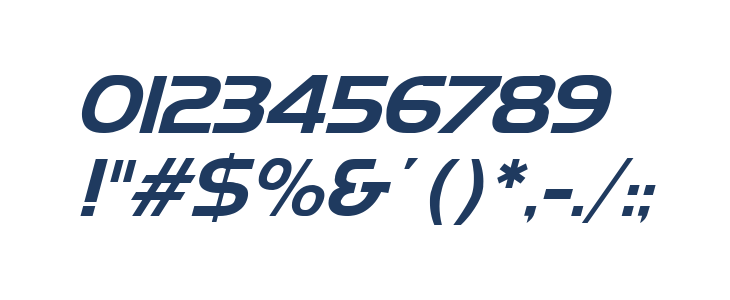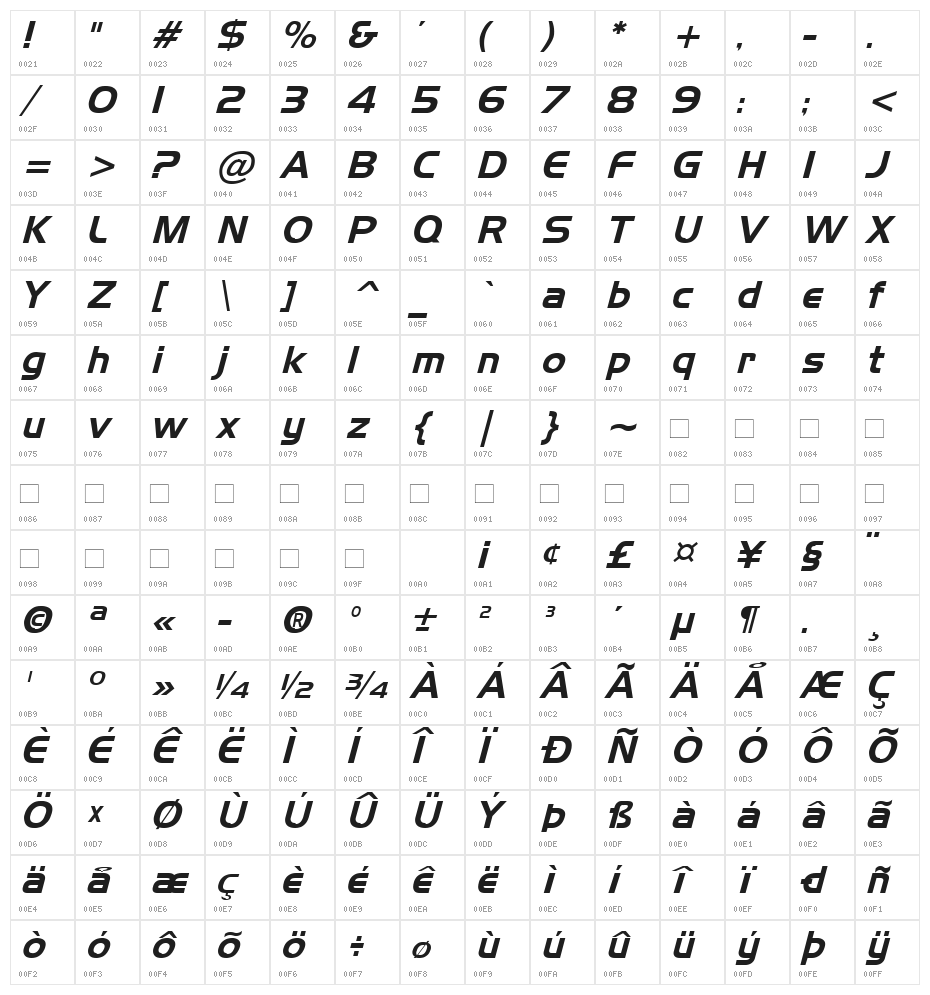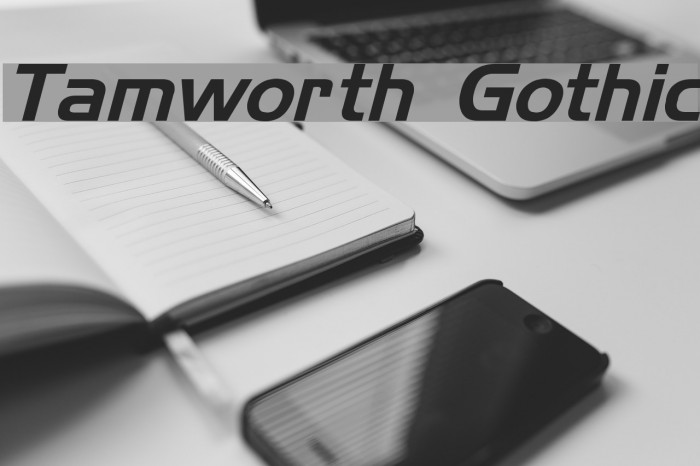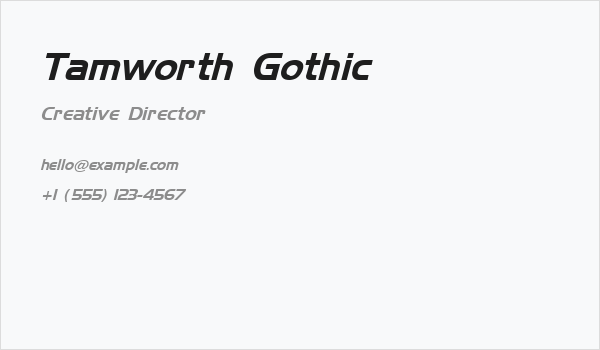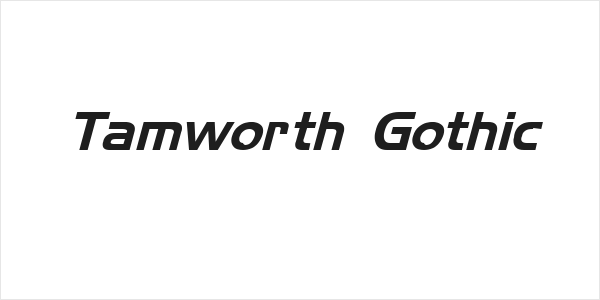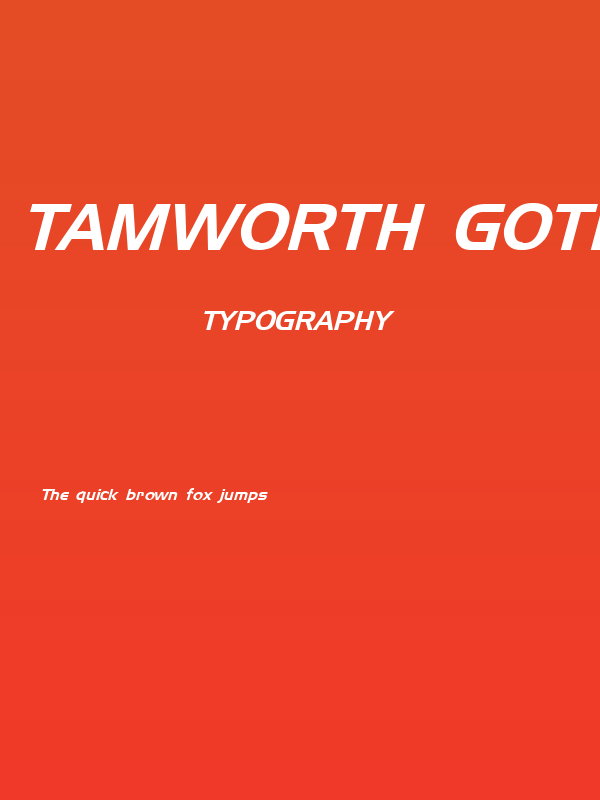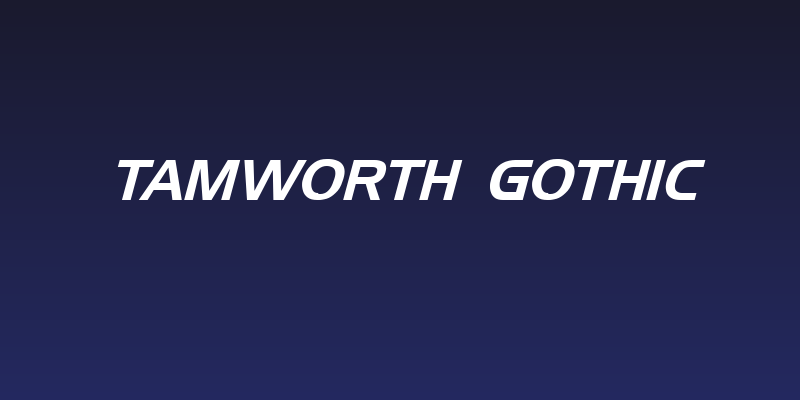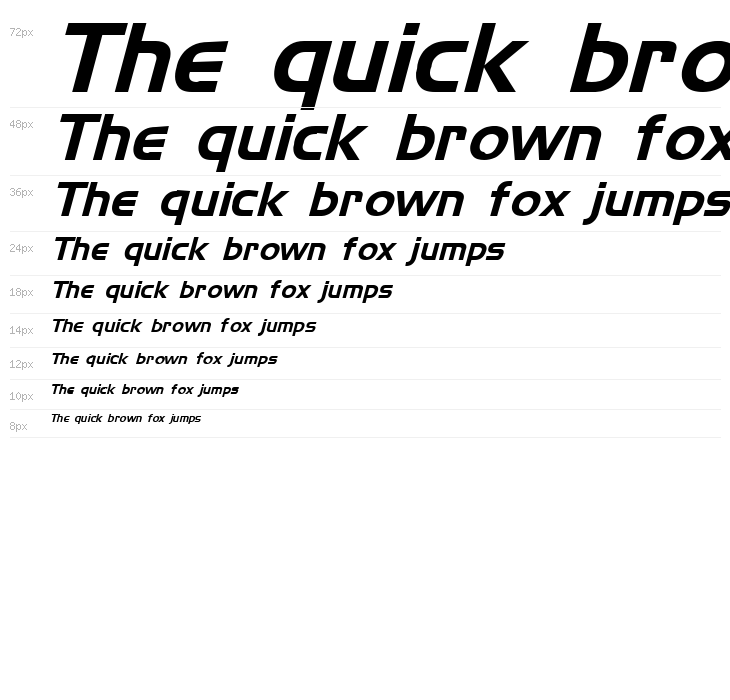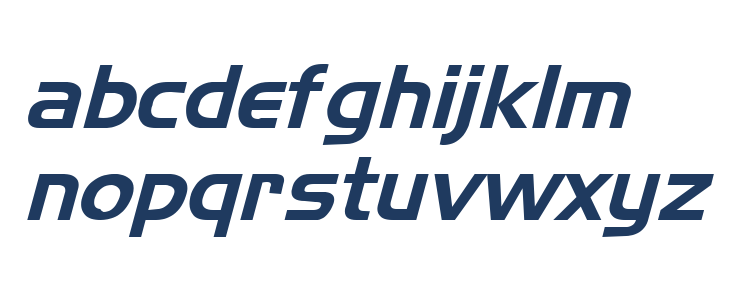
Tamworth Gothic Font
Tamworth Gothic Description
This font features a sleek and modern design with a distinct slant, giving it a dynamic and forward-moving appearance. The characters are bold and slightly condensed, with a consistent stroke width that maintains a clean and uniform look. The uppercase letters are tall and commanding, while the lowercase letters maintain a harmonious balance with their slightly rounded forms. The numerals are clear and easy to read, matching the overall style of the alphabet. Special characters are well-integrated, providing versatility for various design needs. This font is ideal for projects that require a contemporary and energetic feel.